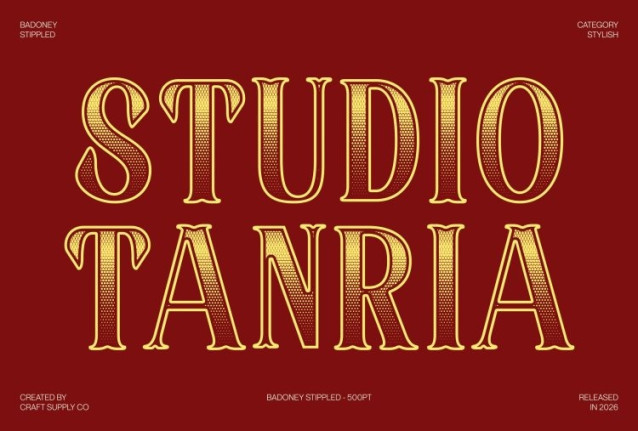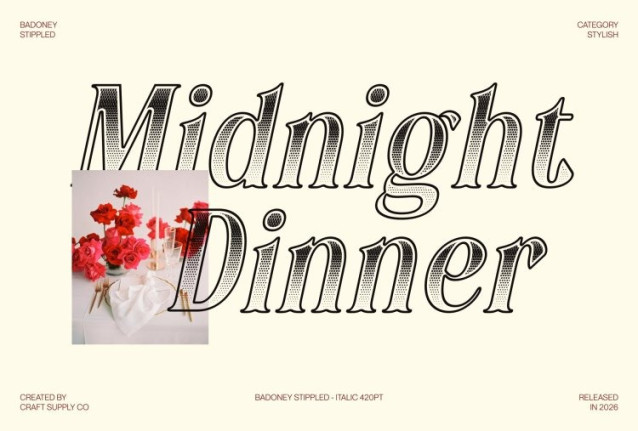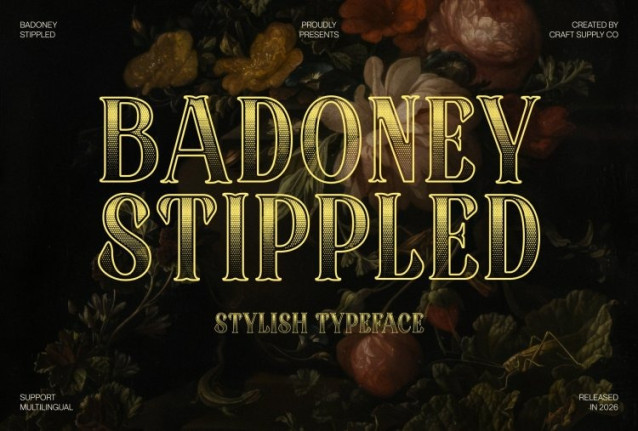
Badoney Stippled Font
Badoney Stippled Font This is a refined serif display font that combines elegance with artistic flair. Its stippled style adds a dense dotwork texture reminiscent of traditional ink stippling or hand-drawn illustration, giving each letter a unique, handcrafted quality. This detail enhances the font’s vintage appeal while maintaining a modern, stylish sophistication.
Elegance in Every Curve
Each character of this font is meticulously designed with graceful curves and balanced lines, transforming ordinary text into expressive typography. The stippled texture amplifies its decorative quality, adding depth and a tactile, artistic charm that stands out in any design.
Versatile Impact Across Platforms
Whether used for magazine covers, website titles, branding, packaging, or editorial layouts, delivers a bold and stylish presence. Its combination of classic serif elegance and textured artistry ensures that your designs leave a lasting impression.
Crafting Unforgettable Impressions
More than just a typeface, transforms words into statements. With its sophisticated serif forms and distinctive stippled detailing, it elevates your message, creating a visual identity that is both timeless and memorable.